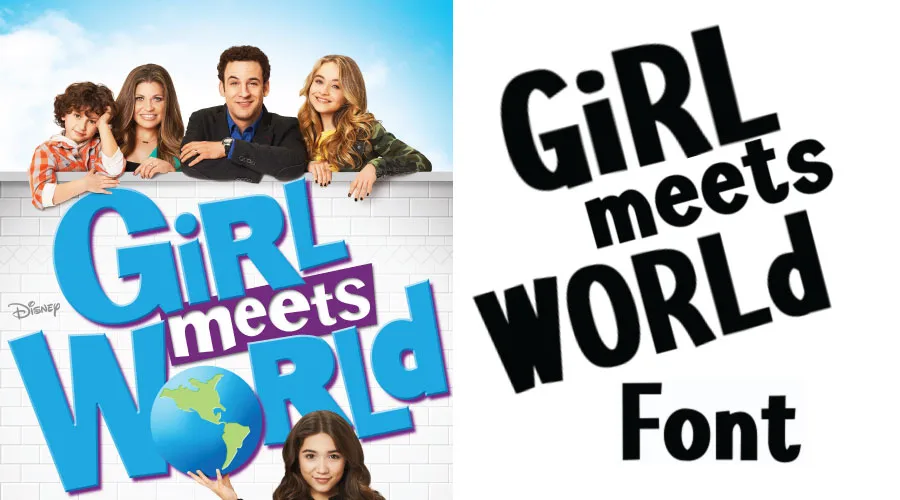
The Girl Meets World font is found in the title logo of the TV series Girl Meets World. It is a popular American television series that aired from 2014 to 2017 and is a sequel and spin-off to the beloved 90s show Boy Meets World.
Upon initial research, we discovered that the Girl Meets World Title logo is a custom design font. The font we found is called Difffie-Heavy font, designed by Aah Yes, and is very similar to the Girl Meets World logo font. We also found some other fonts that are similar to the logo.
Here are some details and visual comparisons of how similar they are to the title logo design:
Diffie-Heavy is a geometric sans-serif font family designed by Aah Yes, a type foundry based in Indonesia. It is a bold and robust font with a slightly condensed width, making it ideal for use in headlines, titles, and other large-scale text. Diffie-Heavy font has a very close resemblance to Girl Meets World font.
Smilage is a free font designed by Fontalicious Fonts and is very similar to the Girl Meets World logo font.
Chong Old Style Pro Bold is a font designed by Monotype and has some similarities to the Girl Meets World Title logo font.
The Girl Meets World logo font is not officially released. It has some custom modifications to the logo. However, from our research, the font is similar to Difffie-Heavy font and Smilage Font. I hope this article will help you find your favorite TV show font.